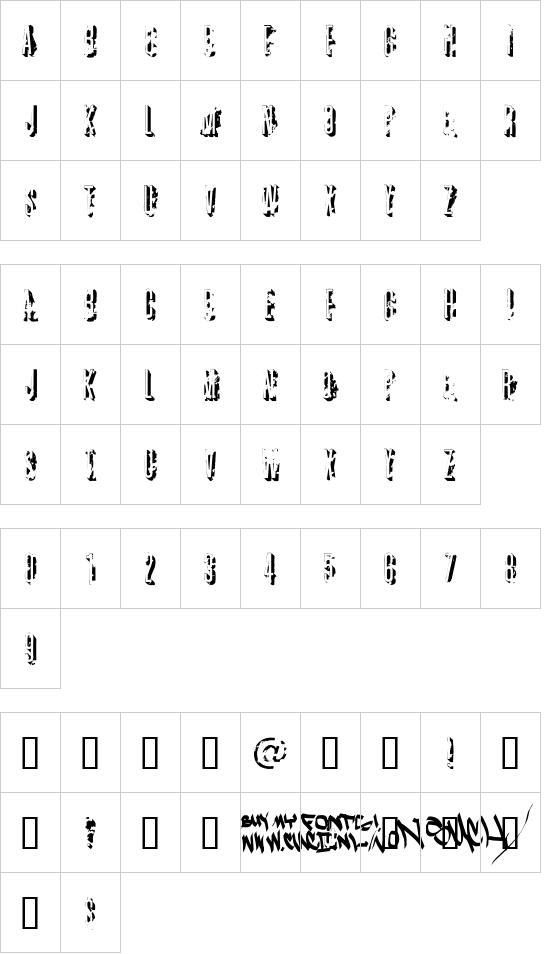
AZ is a grungy three-dimensional display font with rough, distressed letterforms that project battered depth. The extruded shapes are scuffed and eroded, giving each character a worn, banged-up solidity as if salvaged from a dumpster.
AZ suits skate branding, urban posters, edgy album covers, and worn-style T-shirt graphics. It also works for street-culture merch and gritty event flyers. The font is free to download as a TrueType file, and you can preview it with your own text before using it in a layout.